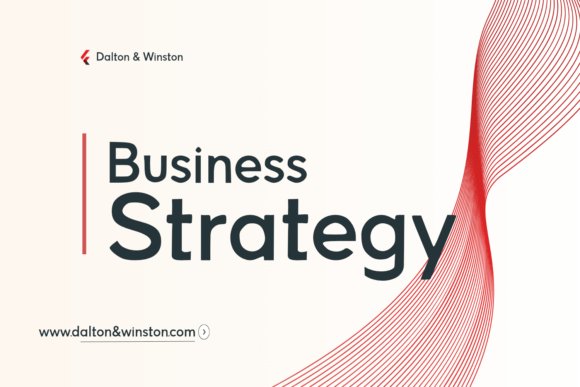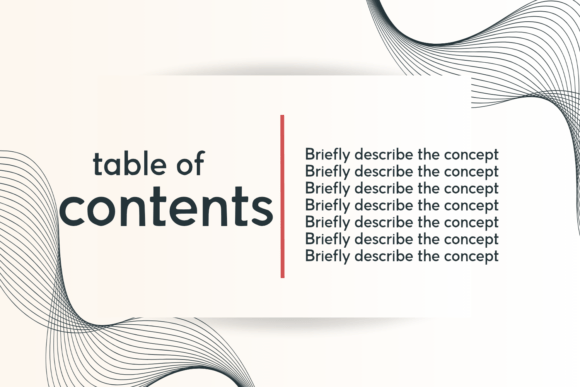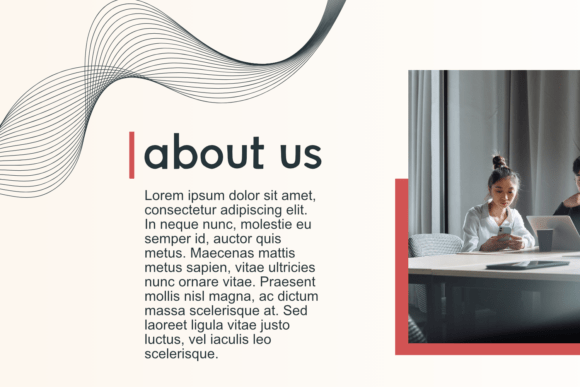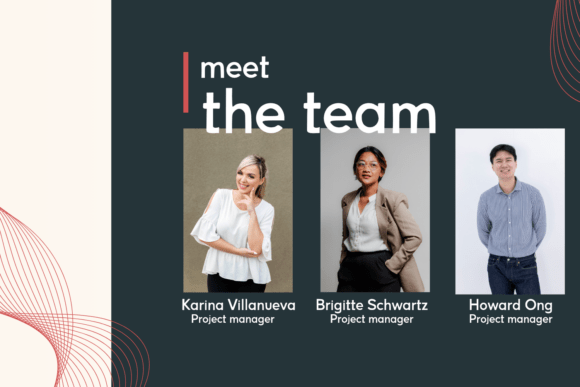
Introduction to Murisa Rae Font Font
Fonts play a crucial role in design, and the Murisa Rae Font font is a typeface that brings both character and versatility to any project. Whether you’re working on a branding project, a website, or a print design, the Murisa Rae Font font offers a unique style that can elevate your work.
β¨ Murisa Rae β A Typeface of Distinction β¨ Murisa Rae is not just a fontβitβs a statement of elegance and modernity.
Designed with precision and vision, this sans-serif creation blends clean geometry with subtle character, making it versatile for both bold headlines and refined body text Perfect for designers, brands, and visionaries who demand originality and want their work to stand apart in a crowded marketplace.
Key Features of Murisa Rae Font Font
Why Choose Murisa Rae Font Font?
The Murisa Rae Font font is more than just a typeface β it’s a design tool that helps you communicate your message with style and clarity. Its unique character set and versatile design make it suitable for a wide range of applications, from elegant invitations to bold headlines.
With its carefully crafted letterforms and balanced proportions, the Murisa Rae Font font ensures readability and visual appeal across all mediums.
What makes Murisa Rae Font font special?
The Murisa Rae Font font stands out with its unique design, exceptional readability, and versatility across various design applications.